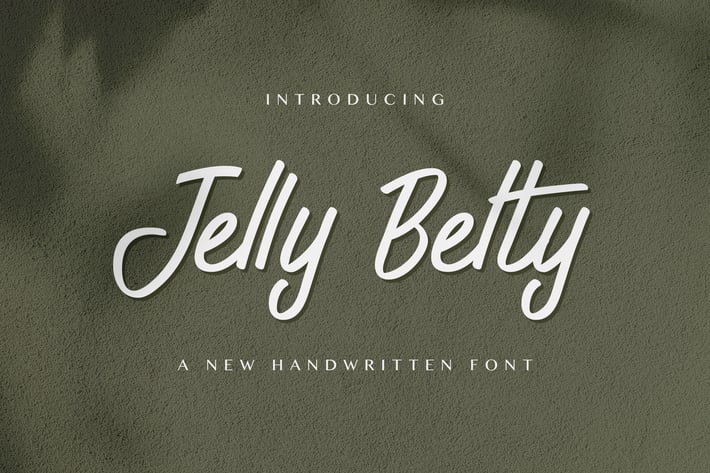
Jelly Belty! - Handwritten Font
Introducing Jelly Belty! - Handwritten Font
Jelly Belty! is a minimalist and beautiful script font. Its casual charm makes it appear wonderfully down-to-earth, readable and, ultimately, incredibly versatile. Gratefully will look outstanding in any context, whether it’s being used on busy backgrounds or as a standalone headline!